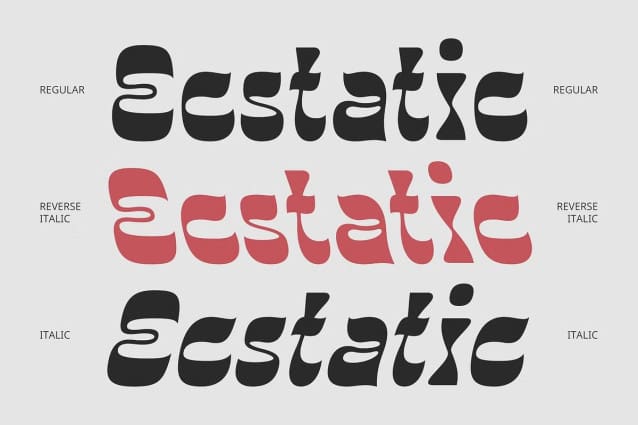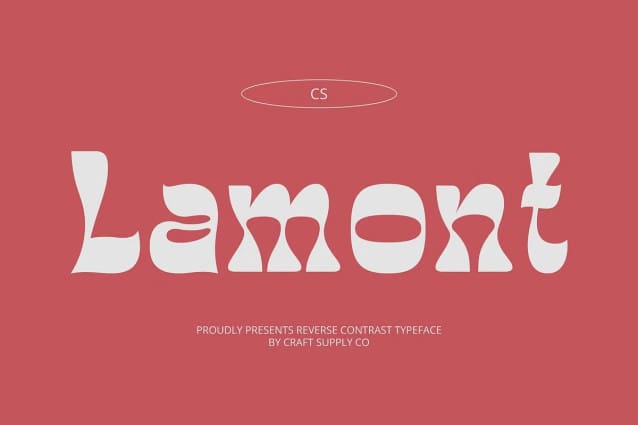
CS Lamont Font
CS Lamont Font is a striking display font that features a fascinating reverse contrast design, where the thicker strokes are positioned on the outside, while the inner parts, including the serifs and strokes, are elegantly thinner. This unconventional approach creates a captivating visual dynamic, resulting in a font that stands out in any context. The bold outer lines combined with delicate inner strokes create an eye-catching contrast that draws attention and invites curiosity, making CS Lamont a perfect choice for projects that aim to make a memorable statement.
Funky Retro Vibe with Modern Appeal Infused with a funky retro vibe, CS Lamont embodies a unique character that exudes creativity and individuality. Its playful yet bold forms add a modern nostalgic element, reminiscent of vintage typography while still feeling fresh and contemporary. This font captures the essence of a bygone era while appealing to today’s design sensibilities, making it a versatile choice for various applications.
Versatile for Various Applications The versatility of CS Lamont makes it suitable for a wide range of applications, including music posters, fashion branding, product packaging, and more. Its unique character and bold presence allow it to adapt seamlessly to different themes and styles, ensuring that your designs maintain a fresh and contemporary look while retaining an element of charm.